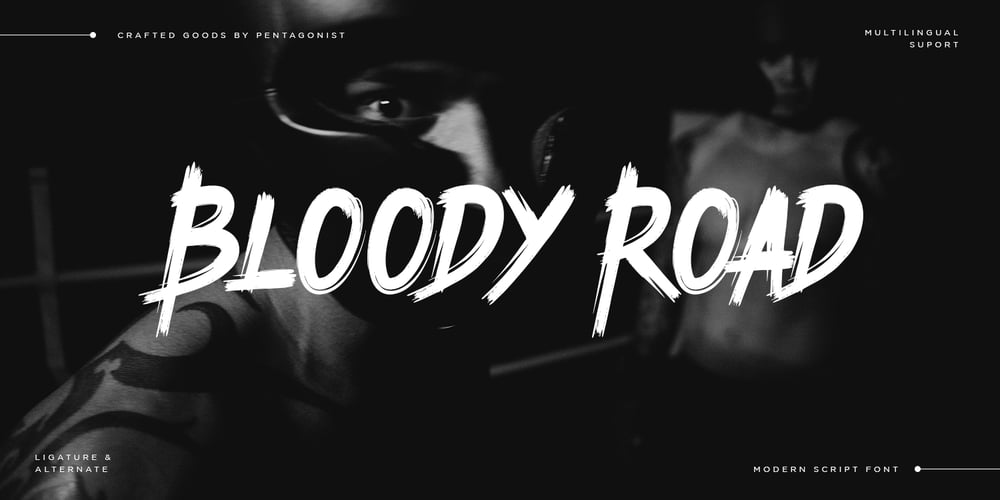
Bloody Road Font Family was designed by Burhan Adiatma and published by pentagonistudio. Bloody Road contains 1 styles and family package options. Bloody Road Is Brush Display Typeface Inspired By Modern and Bold Style.SOFTWARE REQUIREMENTS :Fonts and alternate : No special software required they may be used in any basic program /website apps that allows standard fonts That’s it folks! You can go ahead and get cracking :)Follow My Shop For Upcoming Updates Including Additional Glyphs And Language Support. And Please Message Me If You Want Your Language Included or If There Are Any Features or Glyph Requests, Feel Free to Send me A Message. Have a Good Day !